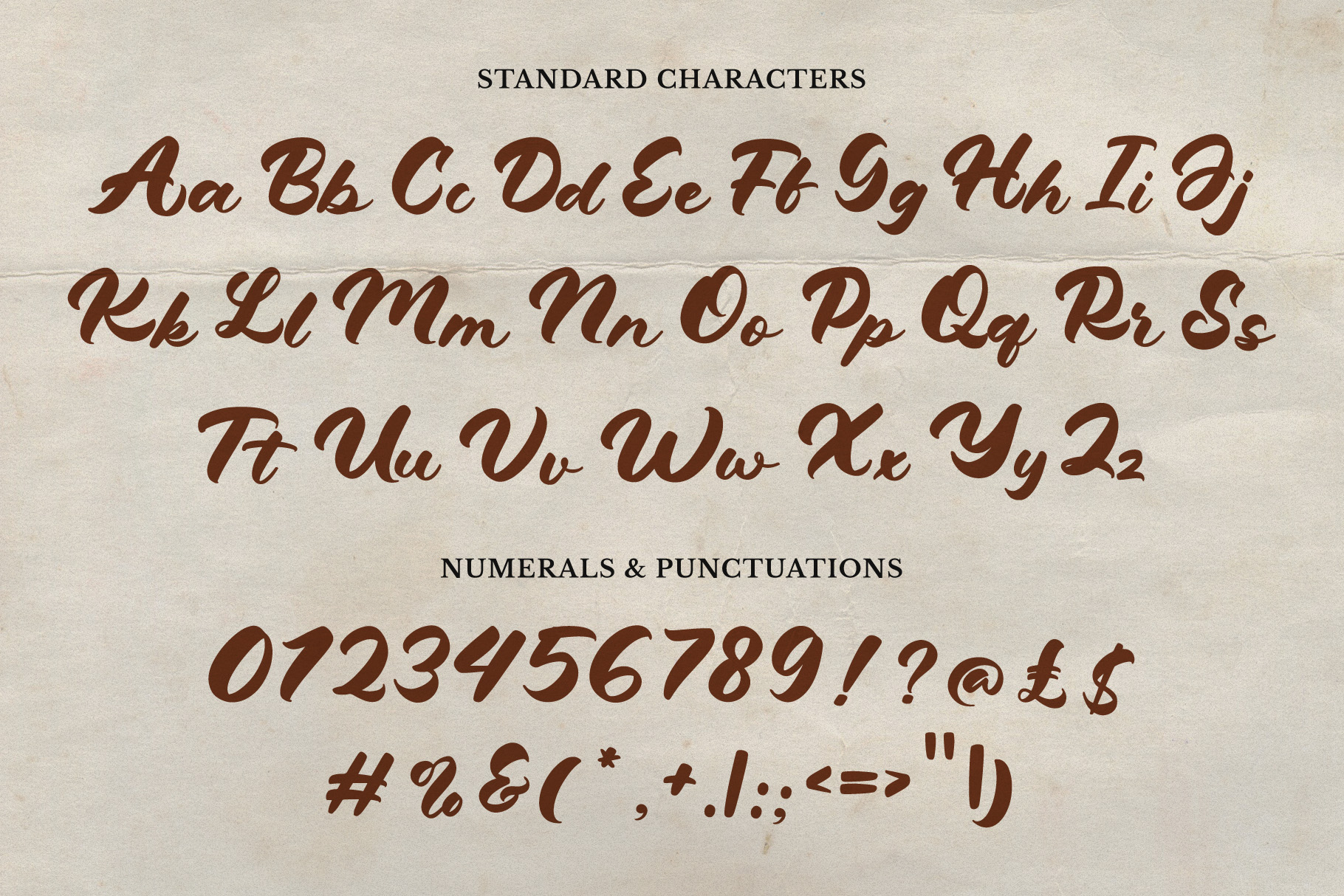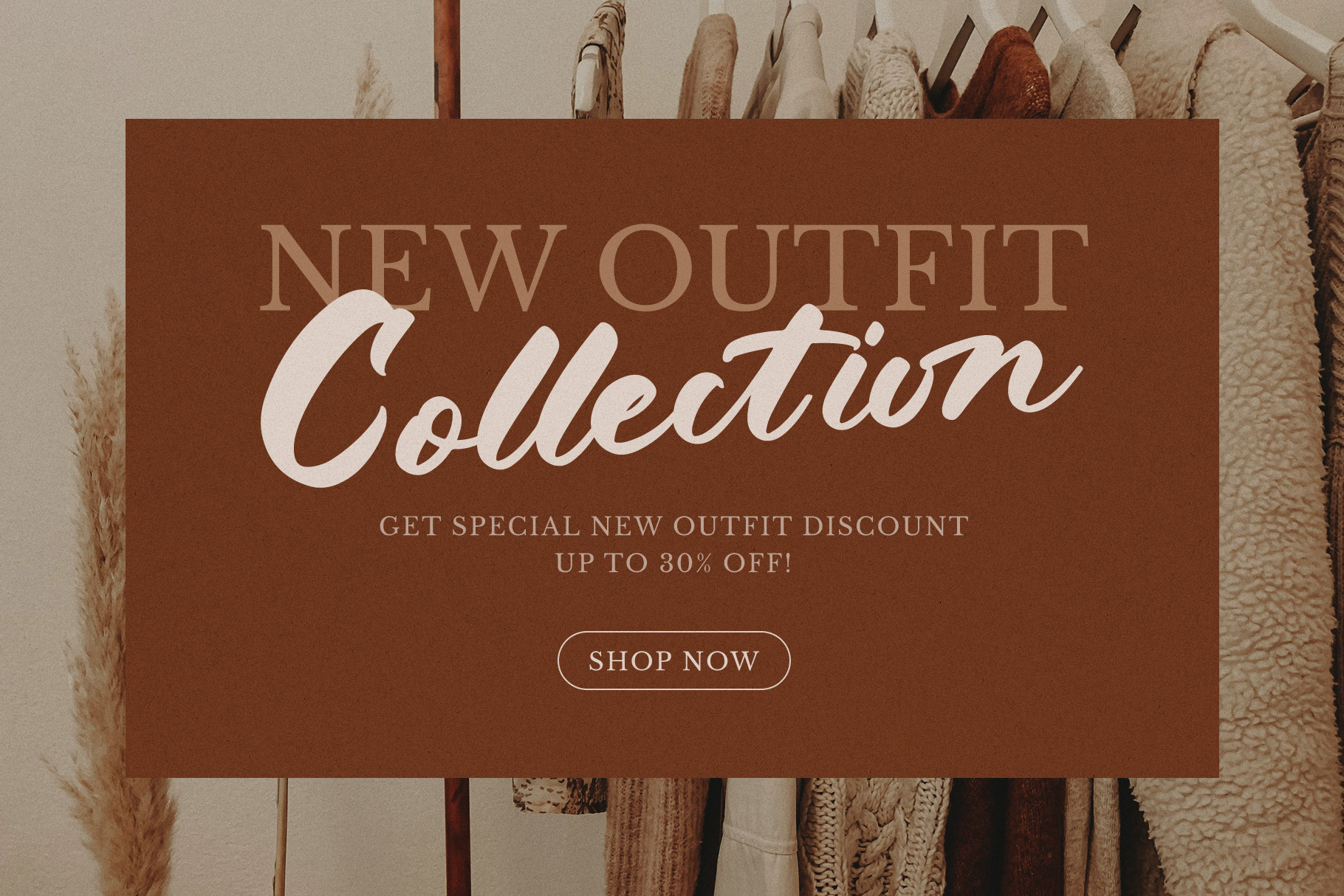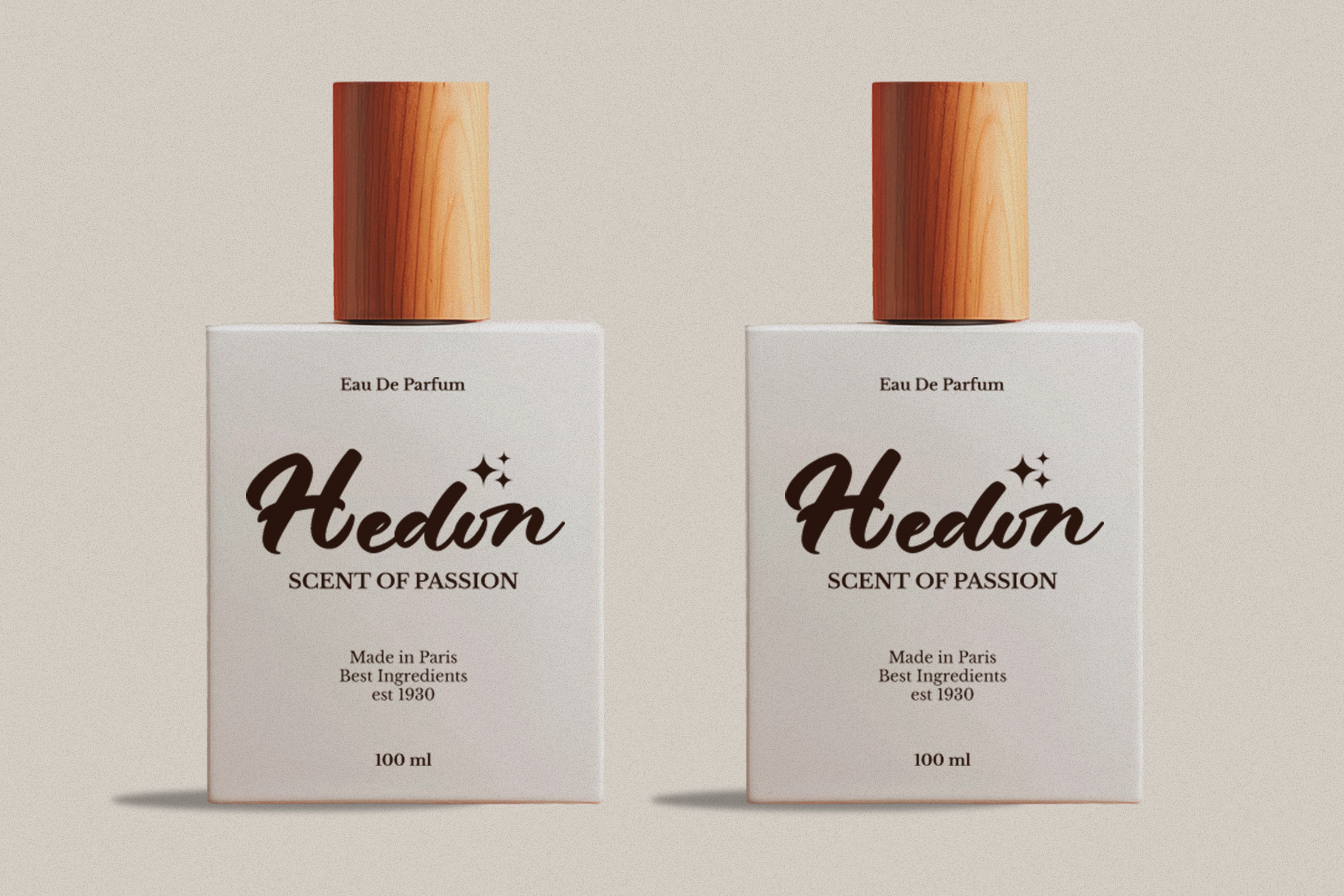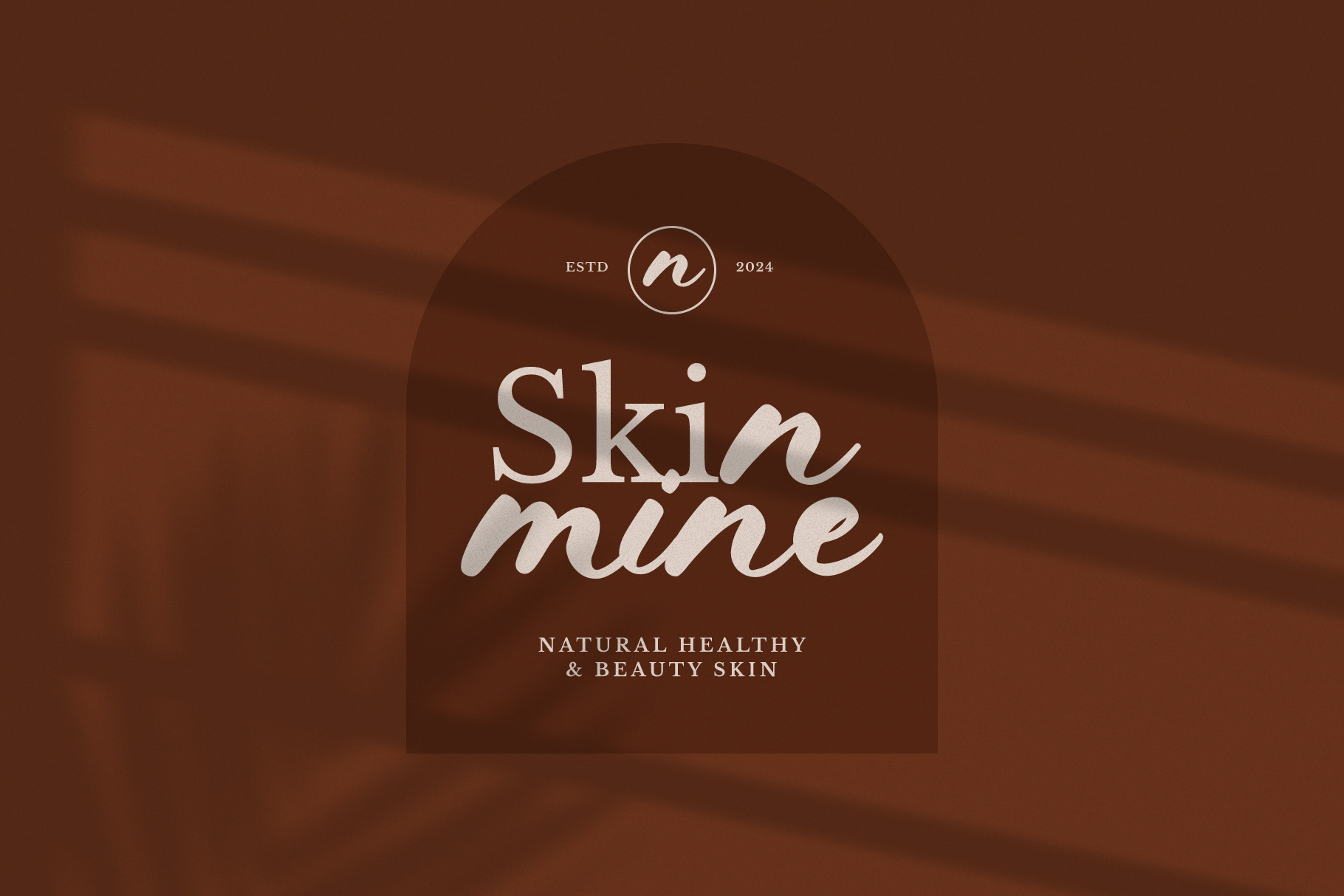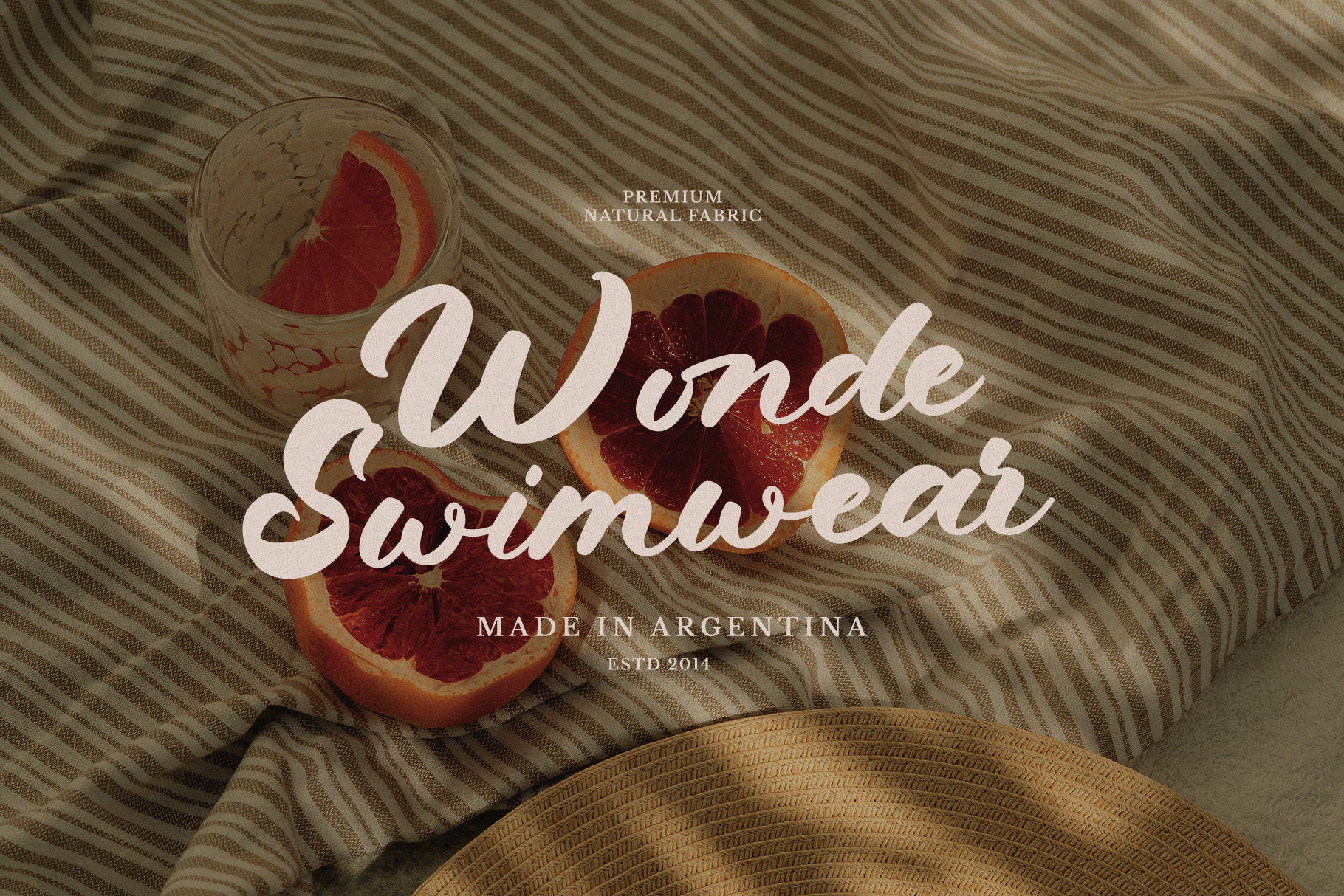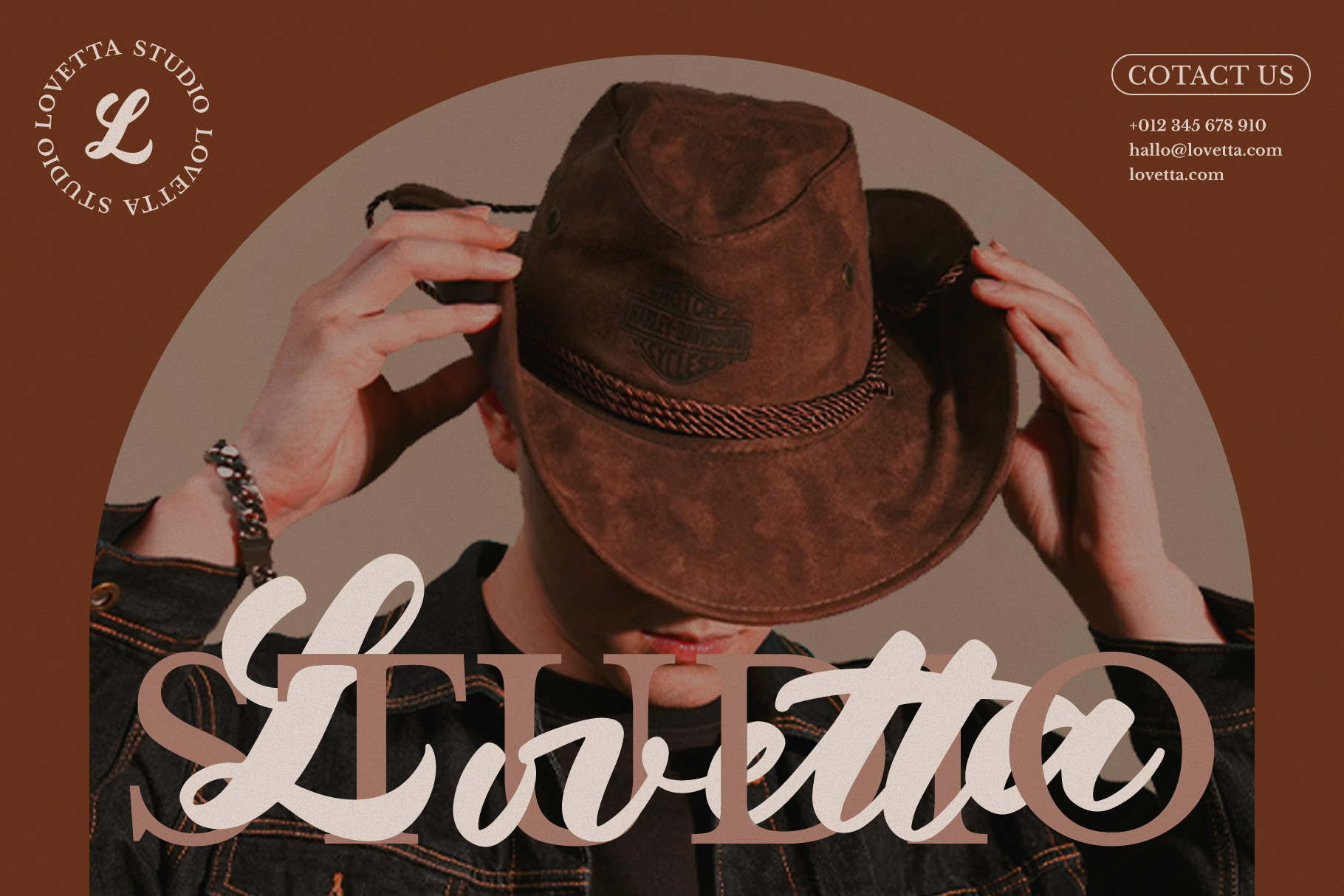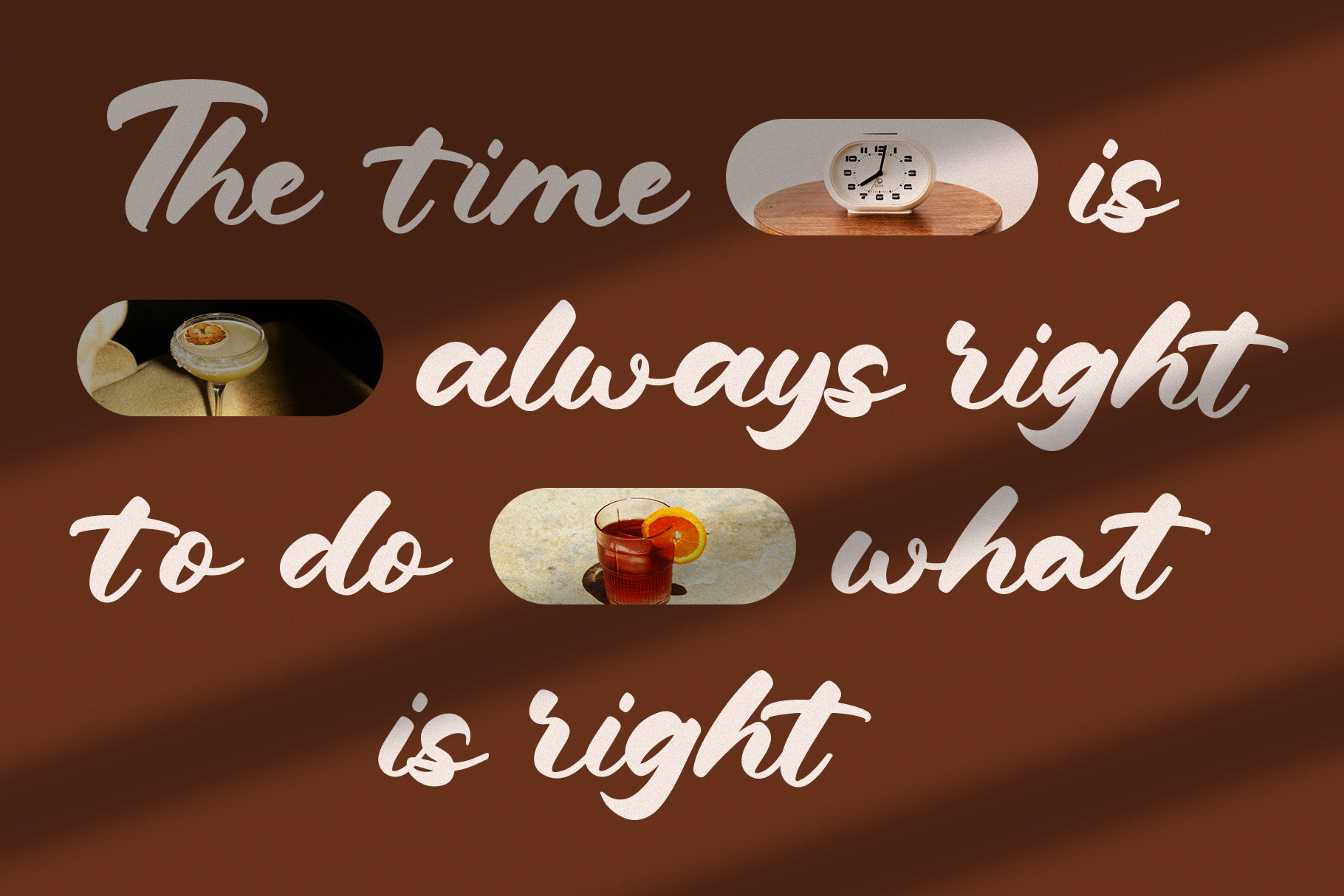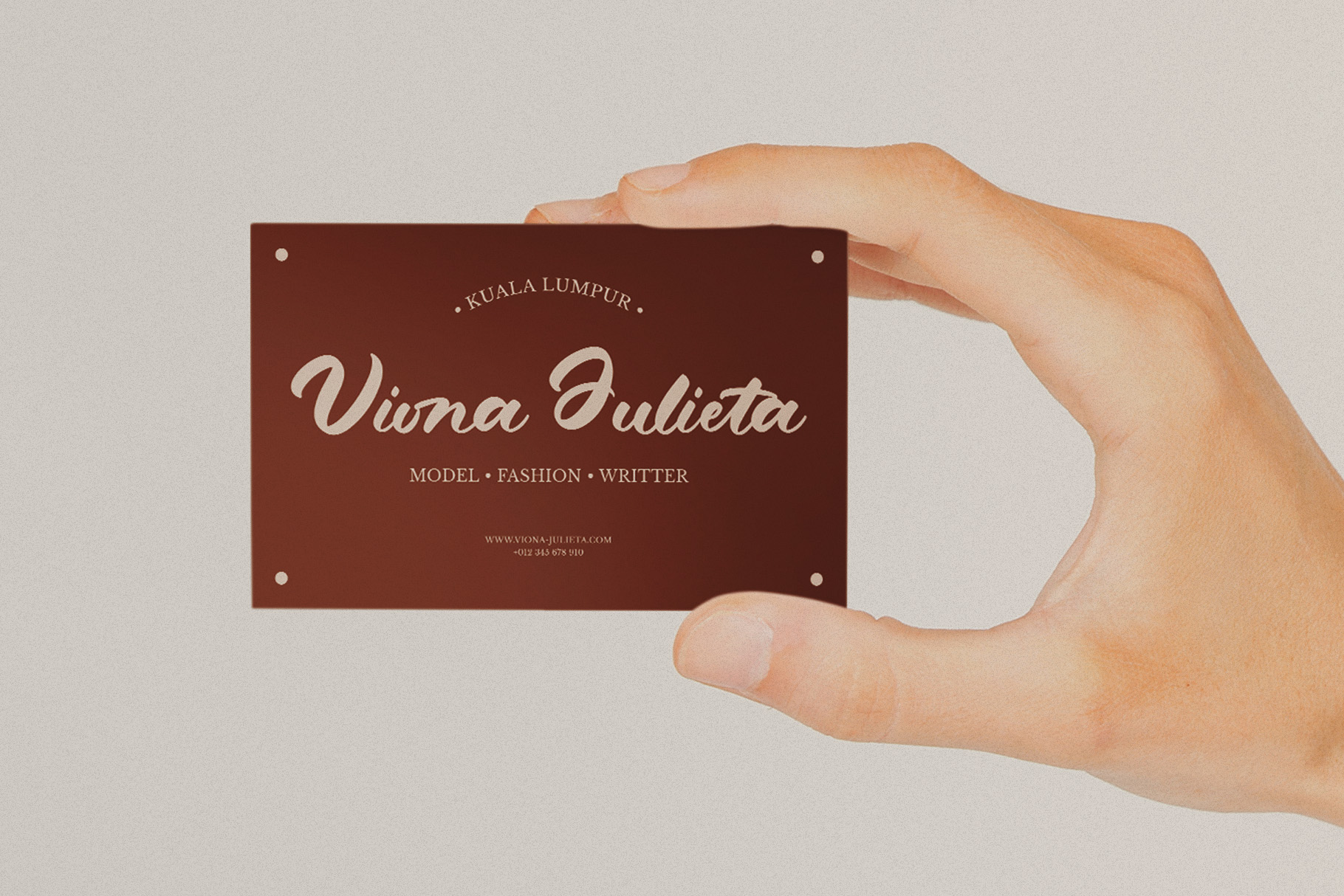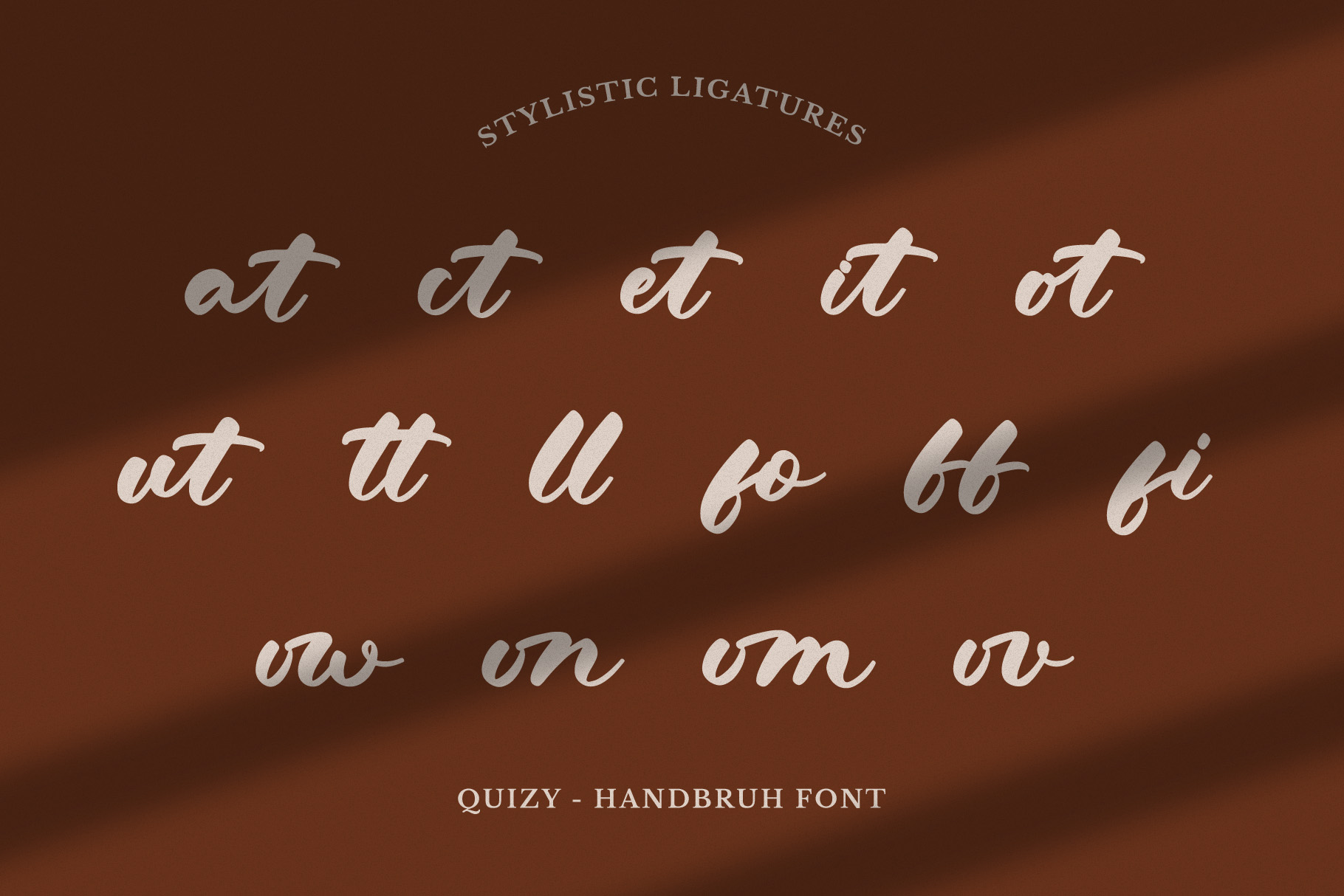
Quizy – Script Font
About Quizy - Script Font
Quizy - Script Font a script style makes this font look elegant, natural, and perfect for any awesome projects that need handwriting taste.
• Ligature & Stylistic alternate